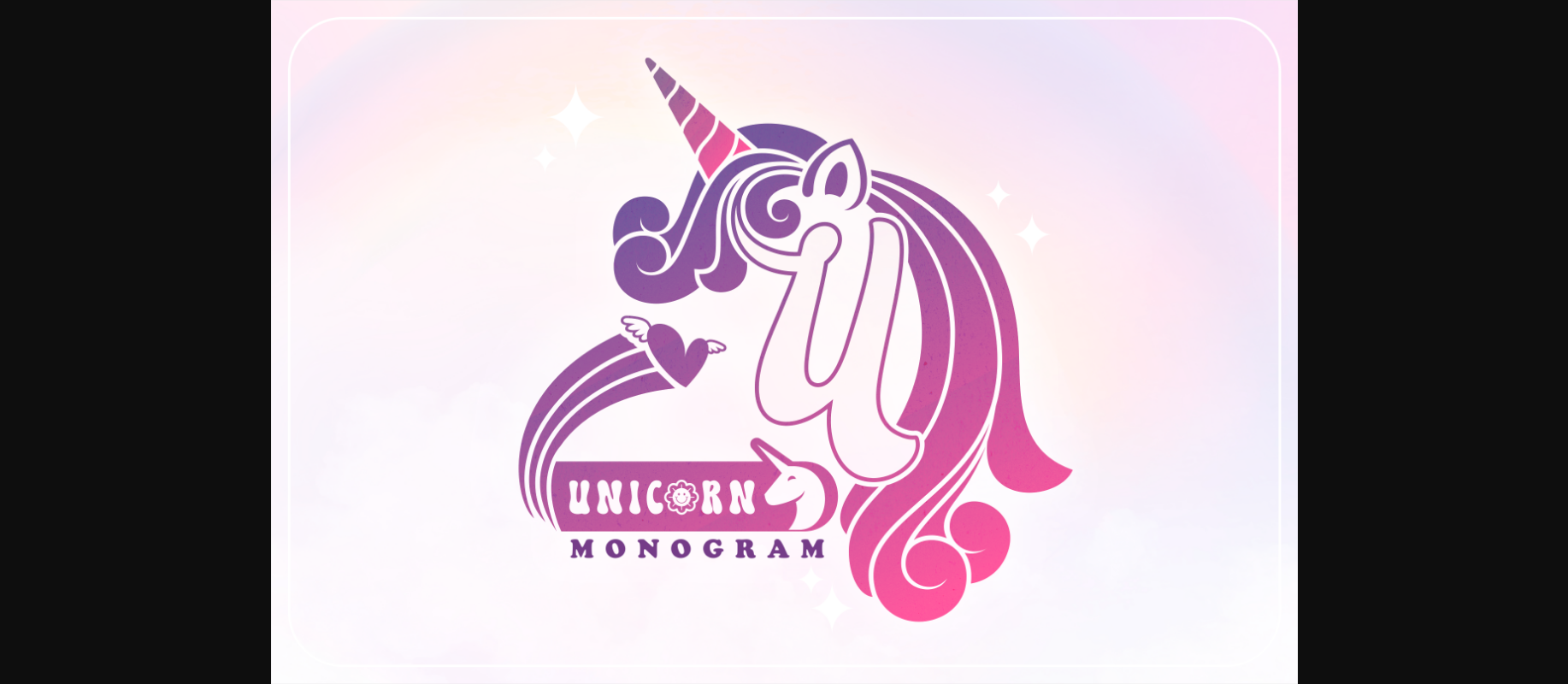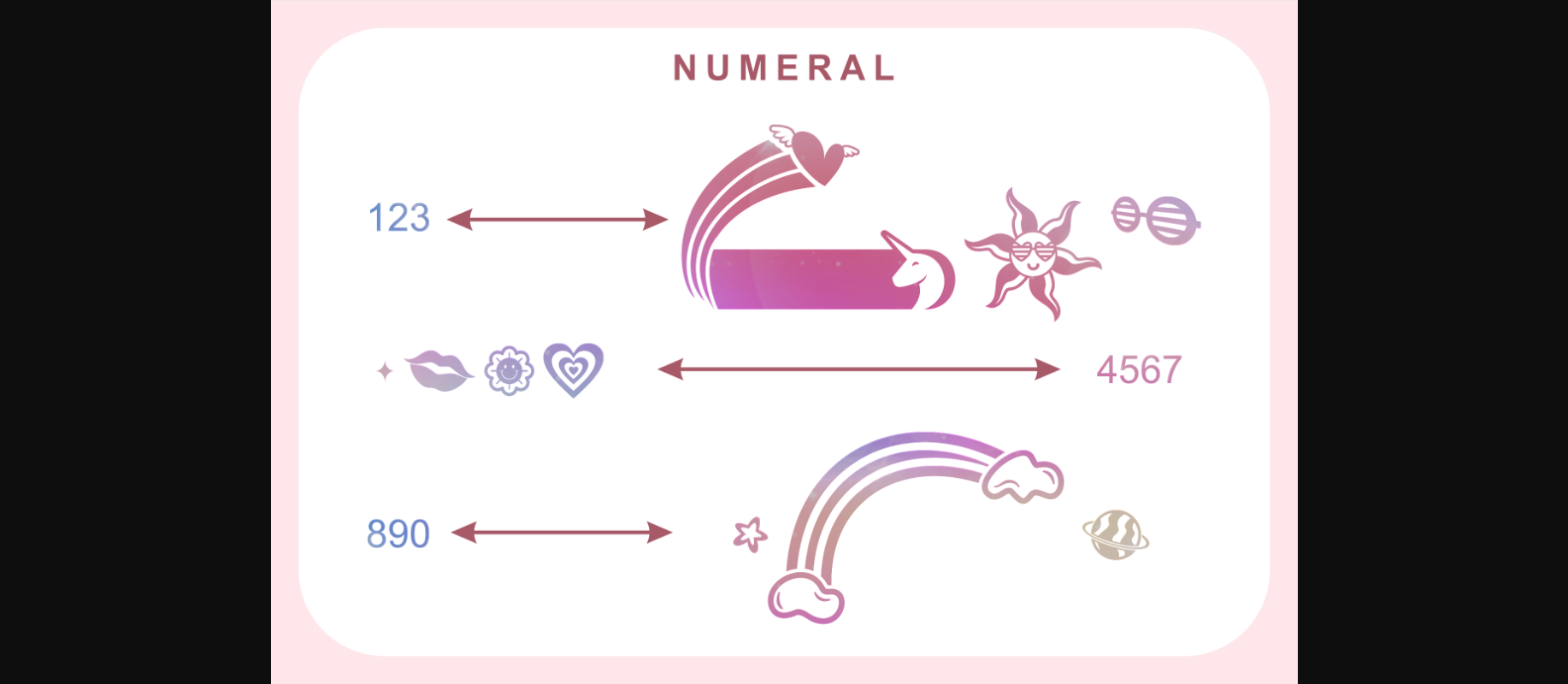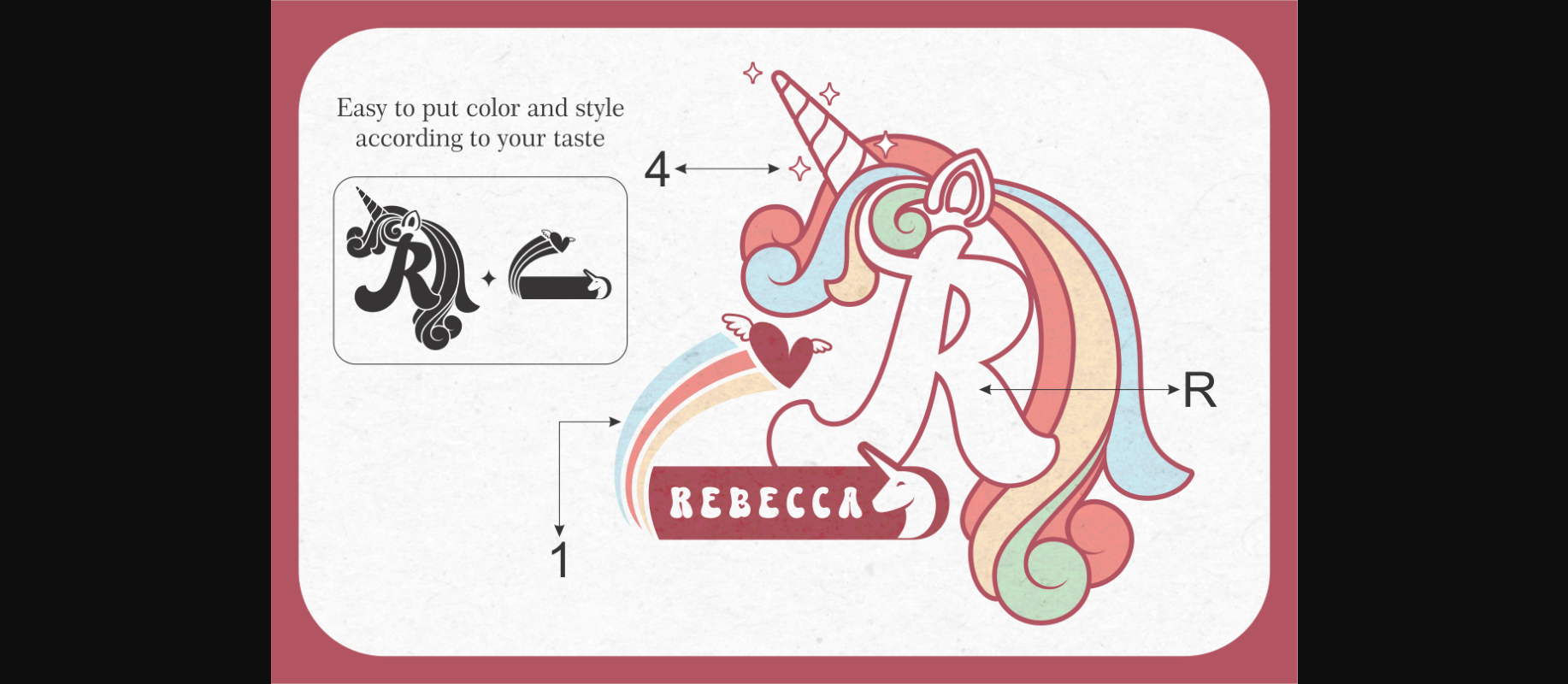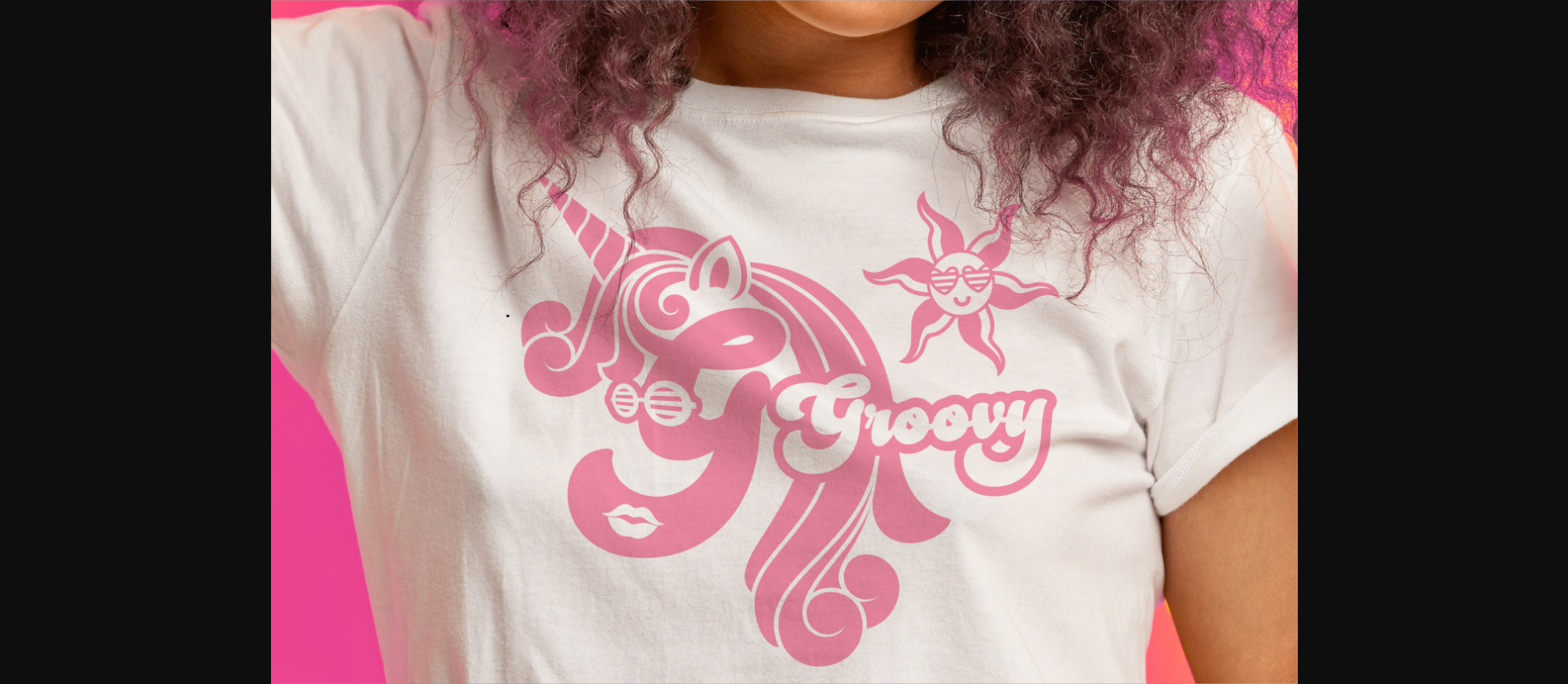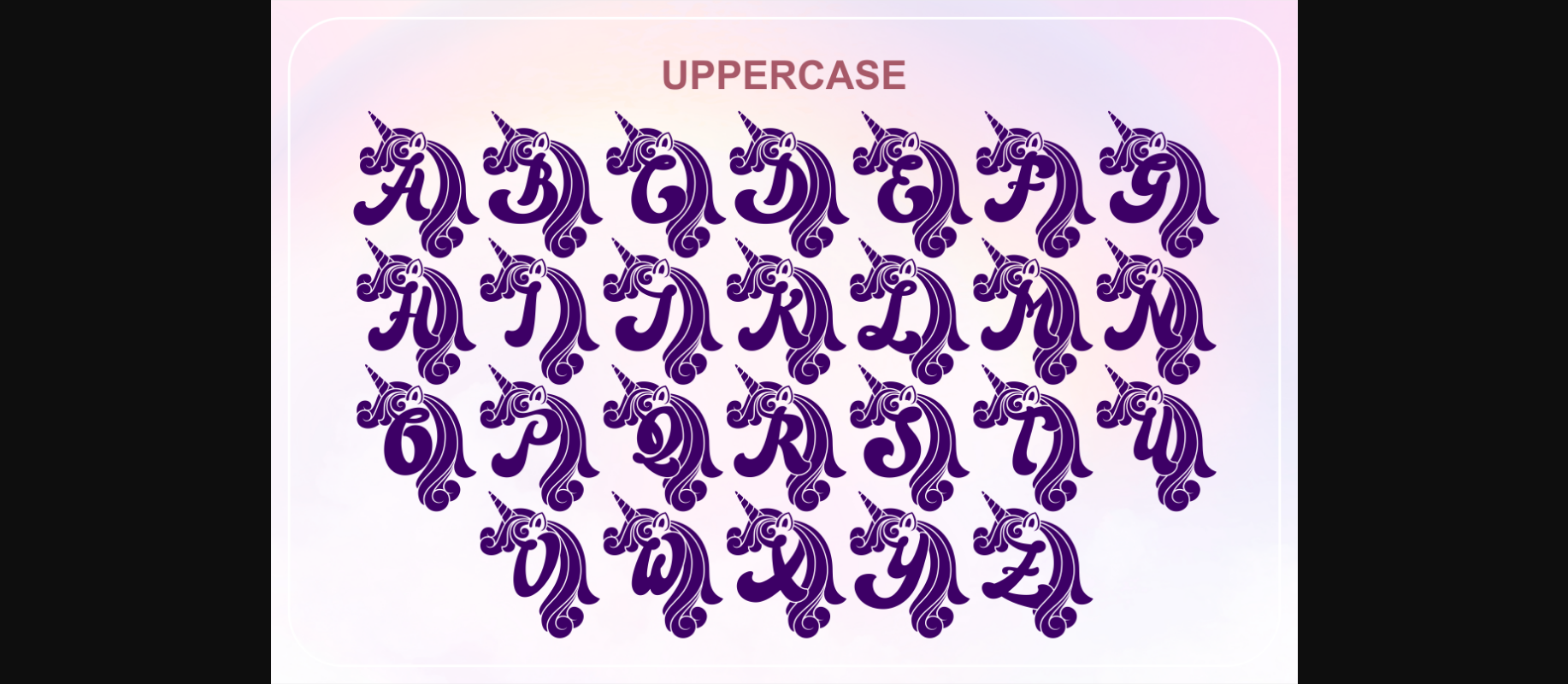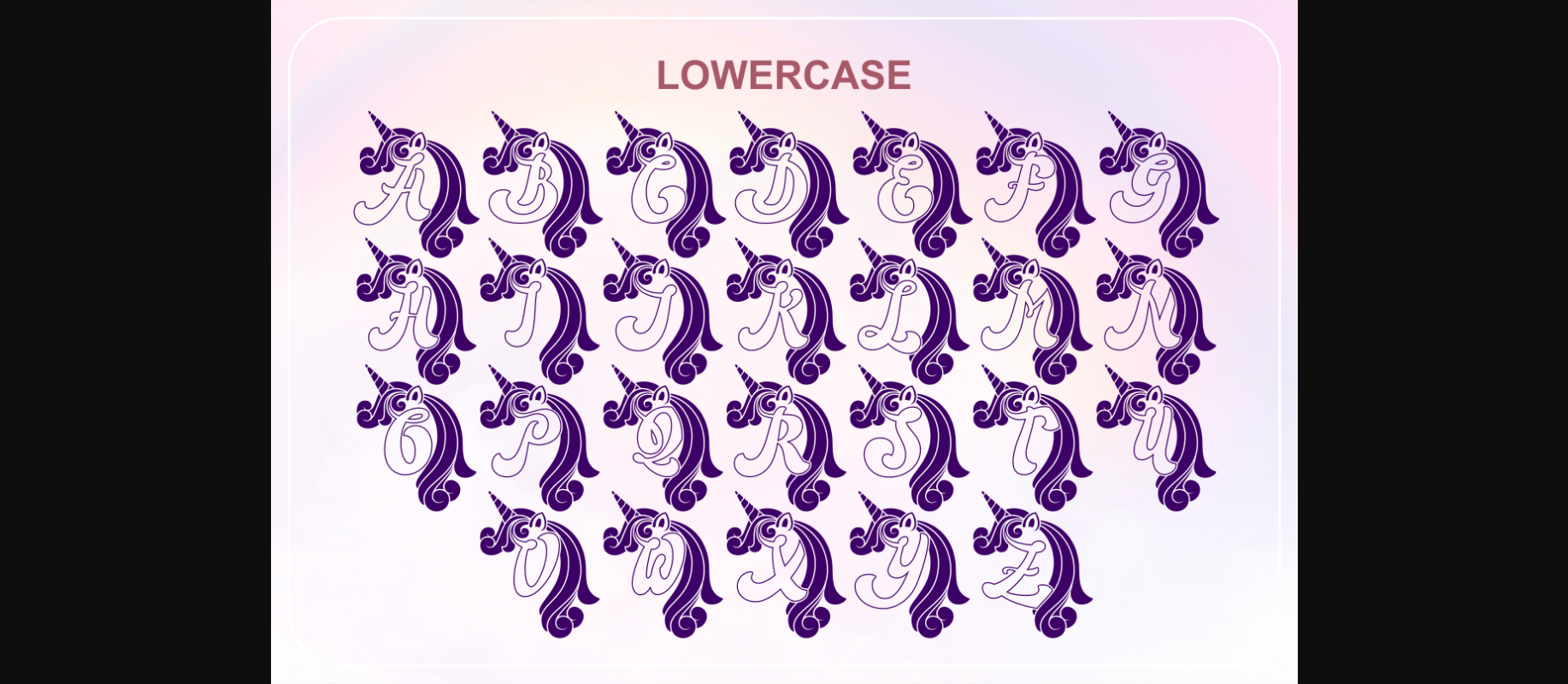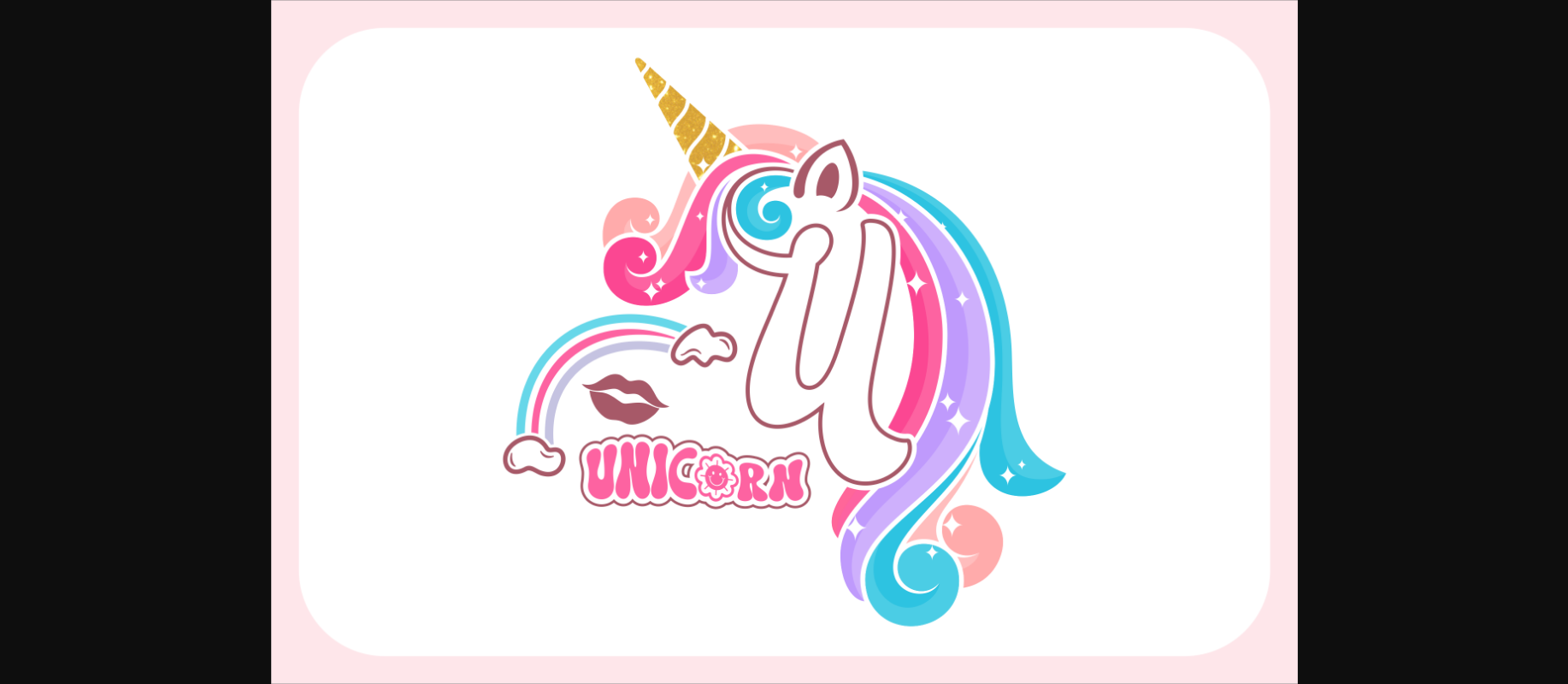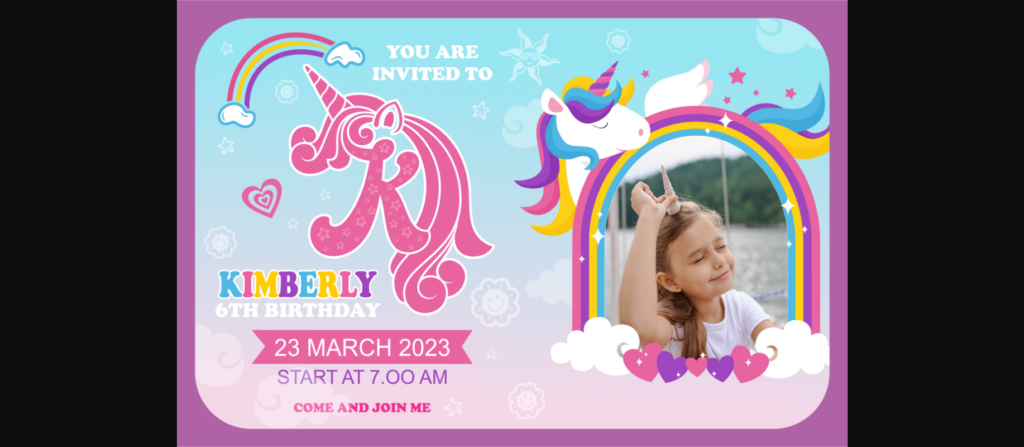
Unicorn Monogram Font
About Unicorn Monogram Font
Unicorn Monogram is a fresh, magic, and bold decorative font. Use it to create breathtaking social media posts, cute greeting cards, logotypes, stickers, t-shirts, or any of your creative design projects.